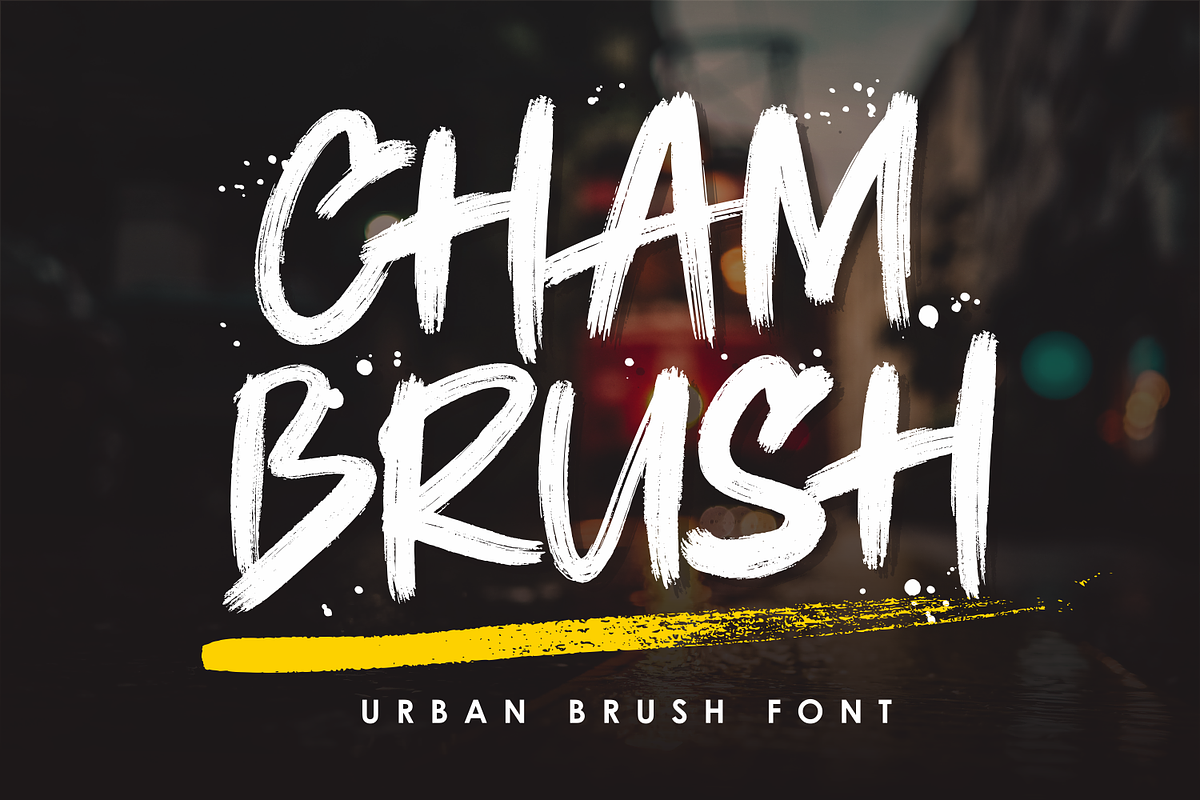
The Chambrush - Urban Brush Font Free Download is a dynamic and expressive typeface that combines the raw energy of street art with a bold brushstroke design. Perfect for urban branding, graffiti-inspired designs, posters, apparel, and social media graphics, this font brings a modern, gritty feel to your creative projects.
With its textured brushstrokes and uneven edges, Chambrush captures the essence of handmade, urban typography. It includes uppercase and lowercase letters, numbers, punctuation, and multilingual support, ensuring versatility for a variety of creative uses.